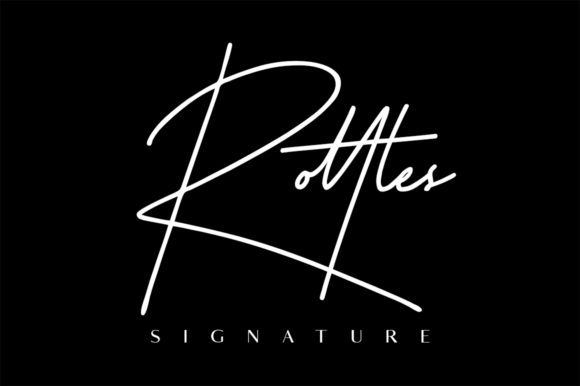
Rottles Signature Font: Elevate Your Designs with this Spectacular Duo
In the world of typography, fonts play a crucial role in making or breaking a design. A well-chosen font can elevate your creative project to new heights, while a poorly chosen one can leave it feeling flat and unengaging. This is where Rottles Signature Font comes in – a spectacular duo font that combines the clean lines of a sans serif font with the elegance of a script font. In this article, we’ll dive into the world of Rottles Signature Font and explore how it can take your designs to the highest levels.
Rottles Signature: A Dual Font Family
Rottles Signature is a dual font family that consists of two complementary fonts: a sans serif font and a script font. This duo font is incredibly versatile, making it suitable for a wide range of designs, from branding and advertising to packaging and digital media. The sans serif font is clean, modern, and highly legible, while the script font adds a touch of elegance and sophistication.
Key Features of Rottles Signature Font
- Dual Font Family: Rottles Signature includes two fonts: a sans serif font and a script font, allowing you to mix and match to create visually appealing combinations.
- Clean and Modern Design: The sans serif font is designed with clean lines and a modern aesthetic, making it perfect for headlines, titles, and body text.
- Elegant Script Font: The script font adds a touch of elegance and sophistication, ideal for adding a personal touch to your designs.
- Highly Legible: Both fonts are highly legible, even at small sizes, ensuring that your message is communicated clearly and effectively.
- Wide Range of Uses: Rottles Signature is suitable for a wide range of designs, including branding, advertising, packaging, digital media, and more.
Design Applications for Rottles Signature Font
Rottles Signature Font is incredibly versatile, making it suitable for a wide range of design applications. Here are a few examples:
- Branding: Use Rottles Signature to create a strong brand identity that exudes modernity and sophistication.
- Advertising: The clean lines and elegant script font make Rottles Signature perfect for advertising campaigns that require a touch of luxury.
- Packaging: Add a touch of elegance to your packaging designs with Rottles Signature, perfect for high-end products and luxury brands.
- Digital Media: Use Rottles Signature to create engaging digital content, including social media graphics, blog posts, and website headers.
Tips and Tricks for Using Rottles Signature Font
Here are a few tips and tricks to help you get the most out of Rottles Signature Font:
- Mix and Match: Experiment with different combinations of the sans serif and script fonts to create visually appealing pairings.
- Use for Headlines and Body Text: Use the sans serif font for body text and the script font for headlines and titles.
- Add a Personal Touch: Use the script font to add a personal touch to your designs, such as for signatures or testimonials.
- Experiment with Colors: Try out different color combinations to find the perfect match for your brand or design.
Pairing Rottles Signature with Other Fonts
Rottles Signature Font can be paired with a variety of other fonts to create unique and visually appealing combinations. Here are a few suggestions:
- Montserrat: Pair Rottles Signature with Montserrat for a modern and sleek look.
- Lato: Combine Rottles Signature with Lato for a clean and elegant aesthetic.
- Merriweather: Pair Rottles Signature with Merriweather for a classic and sophisticated look.